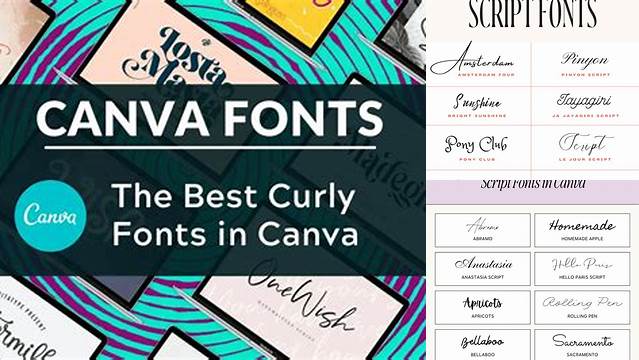
Top Curly Fonts On Canva: A Designer's Guide
Hey guys! Are you looking to add some flair to your designs? One of the easiest ways to do that is by using the right font, and if you're going for a playful or elegant look, curly fonts are the way to go. Canva has a fantastic selection, but navigating it can be a bit overwhelming. That's why we've put together this guide to help you find the best curly fonts on Canva for your next project.
1. Understanding Curly Fonts
Before we dive into specific font recommendations, let's talk about what makes a font "curly." Curly fonts, also known as script fonts or handwritten fonts, are characterized by their flowing, decorative strokes that mimic cursive handwriting. These fonts can range from elegant and formal to playful and whimsical, making them incredibly versatile for various design purposes. When choosing the best curly fonts on Canva, it's important to consider the overall tone and message of your design. A formal invitation, for instance, might benefit from a refined script font, while a children's book might call for something more bubbly and fun. Understanding the nuances of curly fonts will help you make the right choice for your project. Think about the weight of the font, the spacing between letters, and the overall legibility. A beautiful curly font won't be effective if it's hard to read. Also, consider how the font pairs with other elements in your design, such as images and other fonts. Combining a curly font with a simple sans-serif font can create a visually appealing contrast.
2. Elegant Curly Fonts for Formal Designs
If you're working on a formal design, such as wedding invitations, thank you cards, or elegant branding materials, you'll want a curly font that exudes sophistication and class. Canva has plenty of options that fit the bill. These fonts often feature delicate strokes, graceful curves, and a sense of timeless beauty. When selecting elegant curly fonts for formal designs, think about the overall aesthetic you're trying to achieve. Do you want something classic and traditional, or a more modern and minimalist feel? Some popular choices include script fonts with intricate flourishes and swashes, which can add a touch of luxury to your design. However, it's crucial to ensure that the font remains legible, even with all the embellishments. Avoid fonts that are overly ornate or difficult to read at smaller sizes. Instead, opt for fonts that strike a balance between elegance and clarity. Pairing these fonts with simple, understated design elements can further enhance their impact. Consider using a neutral color palette and plenty of white space to create a clean and sophisticated look.
3. Playful Curly Fonts for Fun Projects
For projects that require a touch of whimsy and fun, playful curly fonts are the perfect choice. These fonts often have a more casual and approachable feel, making them ideal for designs aimed at children, informal events, or creative branding. When selecting playful curly fonts, look for fonts with rounded edges, bouncy baselines, and a generally lighthearted appearance. These fonts can add personality and charm to your designs, making them more engaging and memorable. Canva offers a wide range of playful curly fonts, from handwritten styles to cartoonish scripts. Experiment with different options to find the one that best suits your project. Consider the overall tone and message you want to convey. A font that's too childish might not be appropriate for all situations, while a font that's too serious might not capture the playful spirit you're aiming for. Also, think about the readability of the font. Playful fonts can sometimes be more challenging to read than more formal fonts, so make sure your chosen font is still clear and legible, especially at smaller sizes.
4. Best Free Curly Fonts on Canva
One of the great things about Canva is that it offers a wide selection of free fonts, including some fantastic curly options. This makes it easy to create beautiful designs without breaking the bank. However, with so many free fonts available, it can be challenging to know where to start. When looking for the best free curly fonts on Canva, it's essential to consider the quality and versatility of the font. Some free fonts may be poorly designed or lack the full character set, which can limit their usefulness. To avoid these issues, look for fonts that have been professionally designed and offer a wide range of glyphs and ligatures. Canva's font library allows you to filter by style and weight, making it easier to find the perfect free curly font for your project. Don't be afraid to experiment with different options and see how they look in your design. Remember, even though a font is free, it doesn't mean it's not high-quality. Many of Canva's free curly fonts are just as good as their premium counterparts.
5. Premium Curly Fonts Worth the Investment
While Canva offers a great selection of free fonts, sometimes you need something extra special for your design. That's where premium fonts come in. Premium fonts are often more polished and refined than free fonts, with more extensive character sets and advanced features. If you're serious about design, investing in a few premium curly fonts can be a worthwhile decision. These fonts can elevate your designs and give them a professional edge. When considering premium curly fonts, think about the specific needs of your project. Do you need a font with multiple weights and styles? Do you need a font that supports different languages? Do you need a font with unique ligatures and swashes? Answering these questions will help you narrow down your options and choose a font that meets your requirements. Remember, a premium font is an investment, so choose wisely. Look for fonts that you can use in multiple projects and that will stand the test of time.
6. Pairing Curly Fonts with Other Fonts
A crucial aspect of using curly fonts effectively is knowing how to pair them with other fonts. Using too many curly fonts in one design can be overwhelming and difficult to read. Instead, it's generally best to pair a curly font with a simpler font, such as a sans-serif or a clean serif font. Pairing curly fonts with other fonts creates visual contrast and helps to balance the overall design. For example, you might use a curly font for headings and a sans-serif font for body text. This combination creates a clear hierarchy and makes the design more readable. When choosing a font to pair with a curly font, consider the overall tone and style of your design. If you're going for a formal look, you might pair a script font with a classic serif font like Times New Roman or Garamond. If you're going for a more modern look, you might pair a handwritten font with a clean sans-serif font like Helvetica or Arial. Experiment with different combinations to see what works best for your project. There are no hard and fast rules, but a good starting point is to choose fonts that have contrasting styles and weights.
7. Curly Fonts for Logos and Branding
Curly fonts can be an excellent choice for logos and branding materials, especially if you want to convey a sense of elegance, creativity, or personality. However, it's essential to choose a curly font that is legible and scalable, as your logo will need to be used in various sizes and formats. When selecting curly fonts for logos and branding, consider the overall message you want to communicate. A script font might be suitable for a luxury brand, while a handwritten font might be better for a more casual or artistic brand. It's also crucial to ensure that the font is unique and memorable, as your logo will be a key part of your brand identity. Avoid using overly common fonts that may make your brand look generic. Instead, look for fonts that have a distinctive personality and stand out from the crowd. Test the font in different sizes and applications to ensure that it remains legible and visually appealing. A beautiful font won't be effective if it's hard to read or doesn't scale well.
8. Curly Fonts for Invitations and Cards
Curly fonts are a classic choice for invitations and cards, adding a touch of elegance and sophistication to any event. Whether you're designing wedding invitations, birthday cards, or holiday greetings, a well-chosen curly font can make a significant impact. When selecting curly fonts for invitations and cards, consider the formality of the occasion. For formal events, such as weddings and galas, you'll want to choose a script font that exudes elegance and grace. For more casual events, such as birthday parties and family gatherings, you might opt for a more playful or handwritten font. It's also essential to ensure that the font is legible, especially at smaller sizes. Invitations and cards often have a lot of text, so you'll want to choose a font that is easy to read. Consider the overall design of your invitation or card and choose a font that complements the other elements. The font should enhance the design, not compete with it.
9. Curly Fonts for Social Media Graphics
In the world of social media, visual appeal is key. Using curly fonts for social media graphics can help you grab attention and convey your message in a stylish and engaging way. However, it's essential to choose fonts that are legible and work well in a digital environment. Social media graphics are often viewed on small screens, so you'll want to avoid fonts that are too intricate or difficult to read at smaller sizes. When selecting curly fonts for social media, consider the overall tone and style of your brand. A playful font might be suitable for a fun and informal brand, while a more elegant font might be better for a professional or sophisticated brand. Experiment with different font combinations and see how they look on different platforms. What works well on Instagram might not work as well on Facebook or Twitter. Also, consider the color and contrast of your text. Make sure your font stands out against the background and is easy to read.
So, there you have it! A comprehensive guide to the best curly fonts on Canva. We hope this helps you find the perfect font for your next design project. Happy creating!